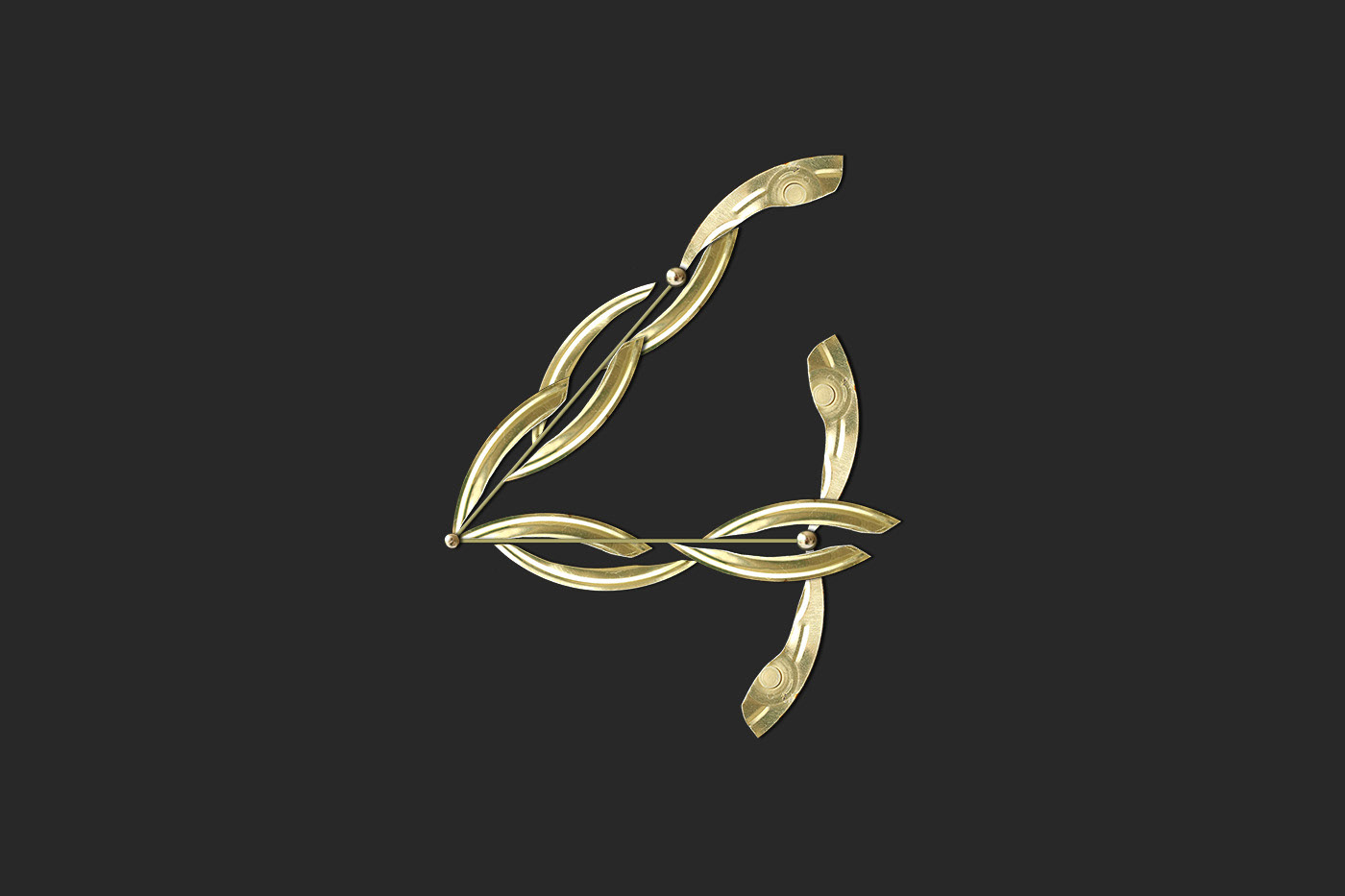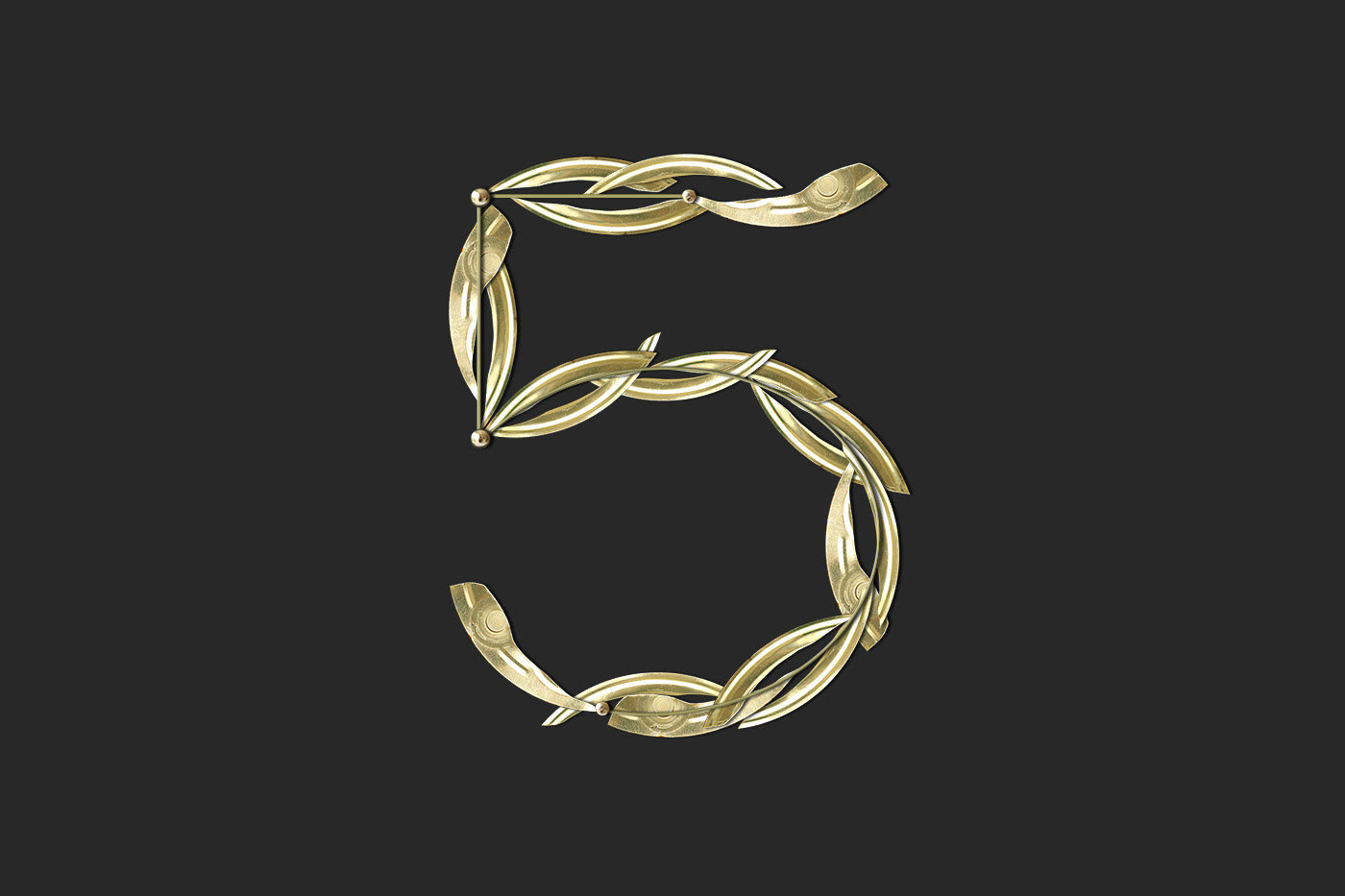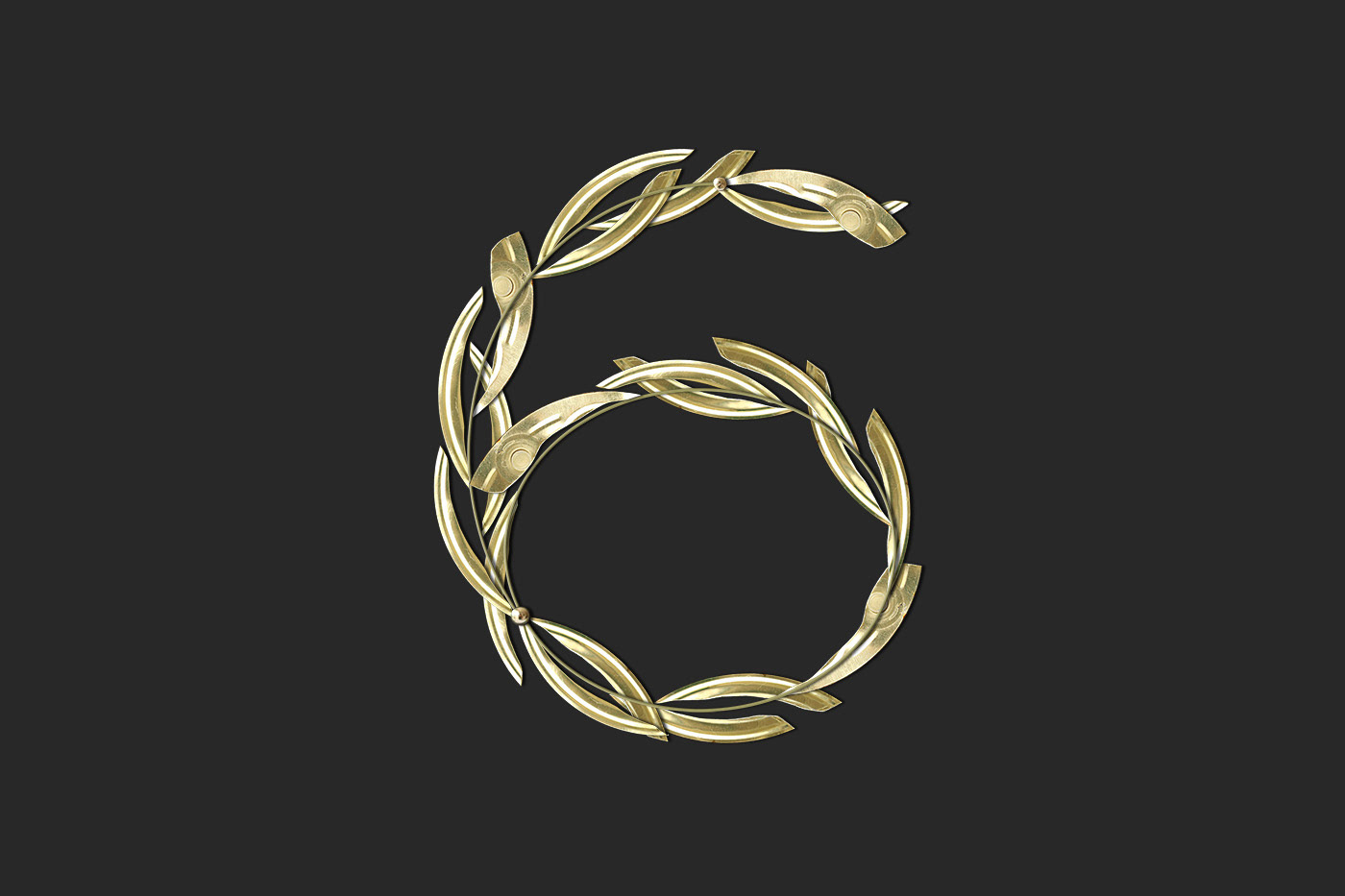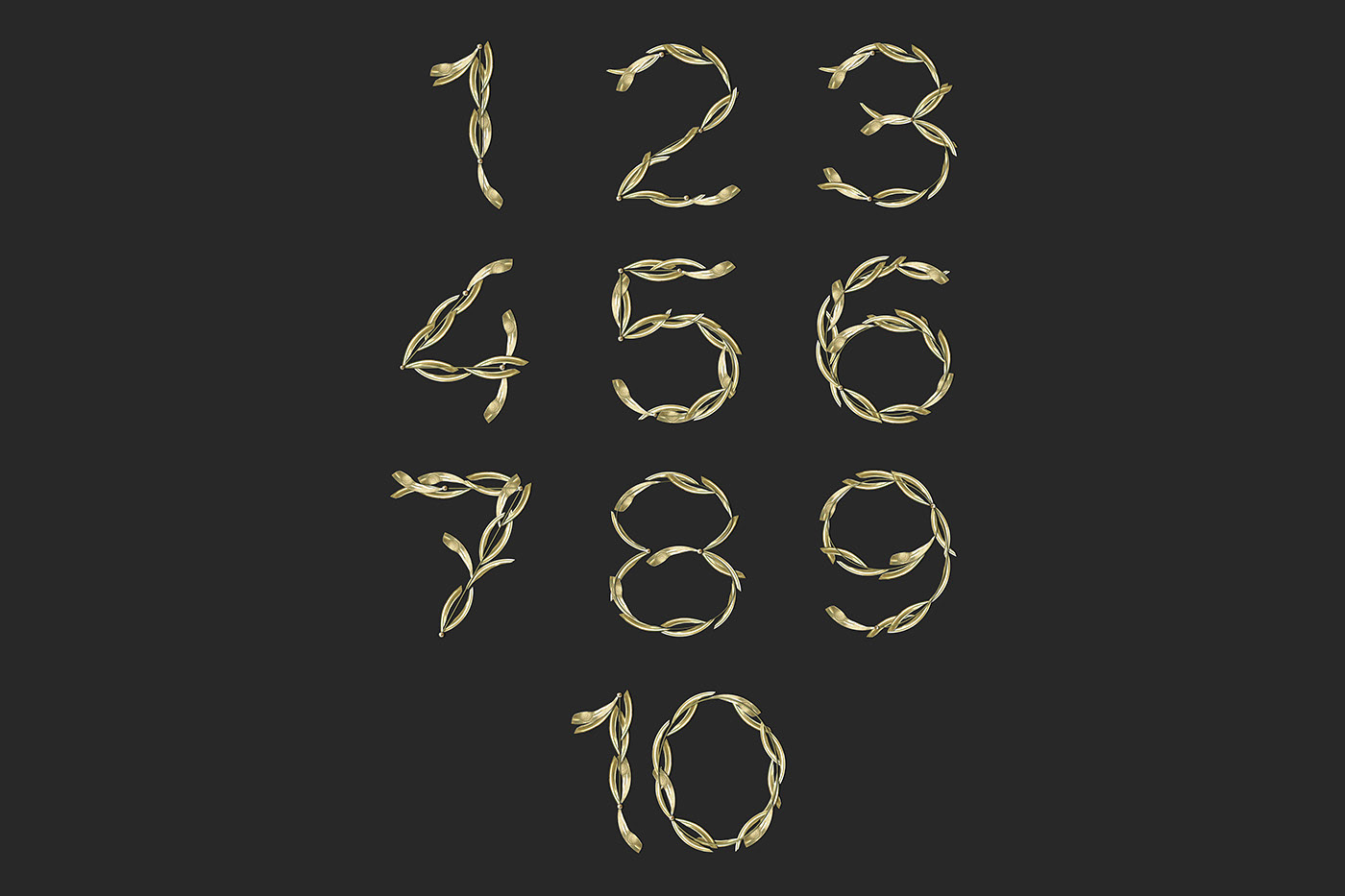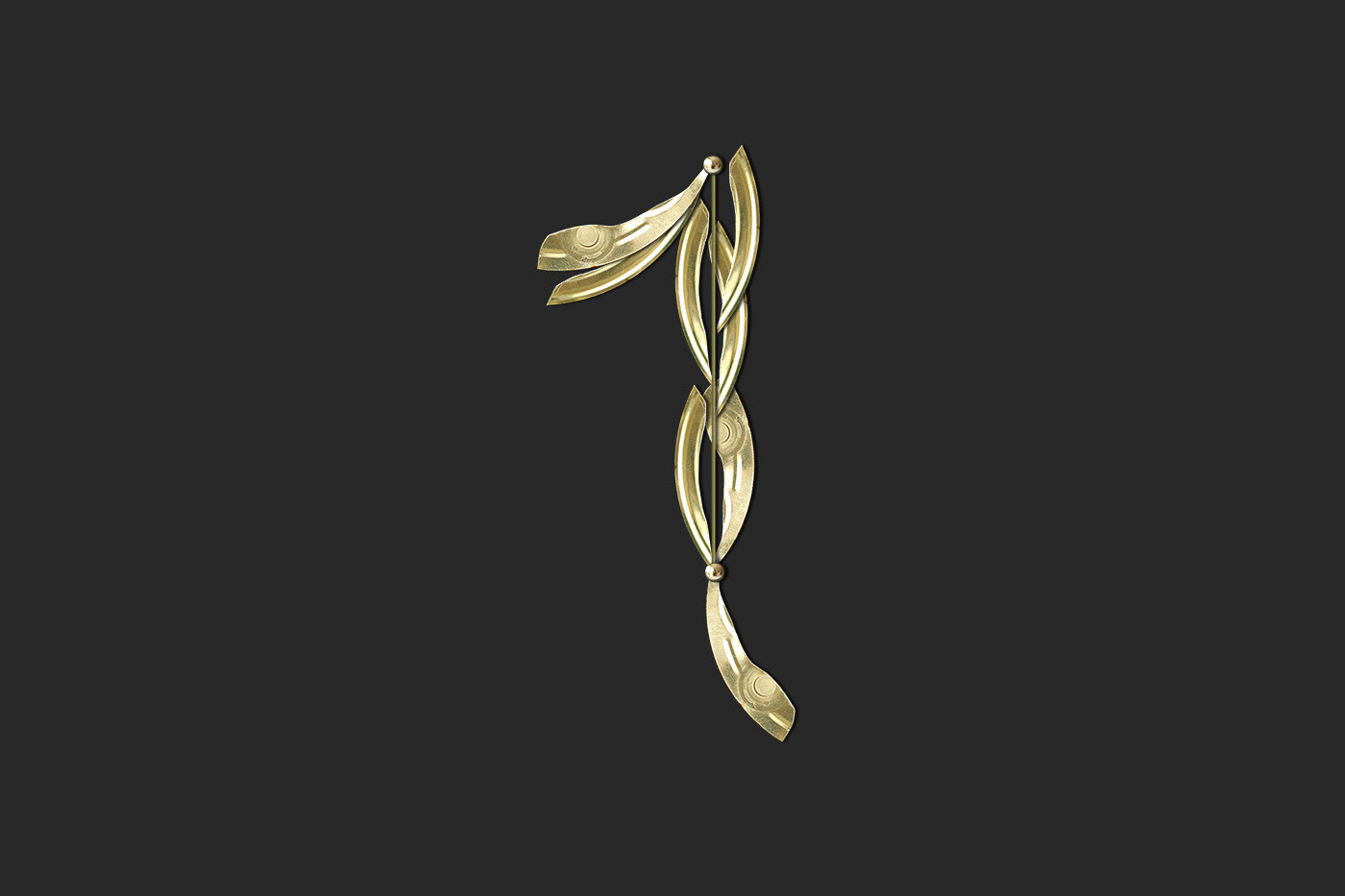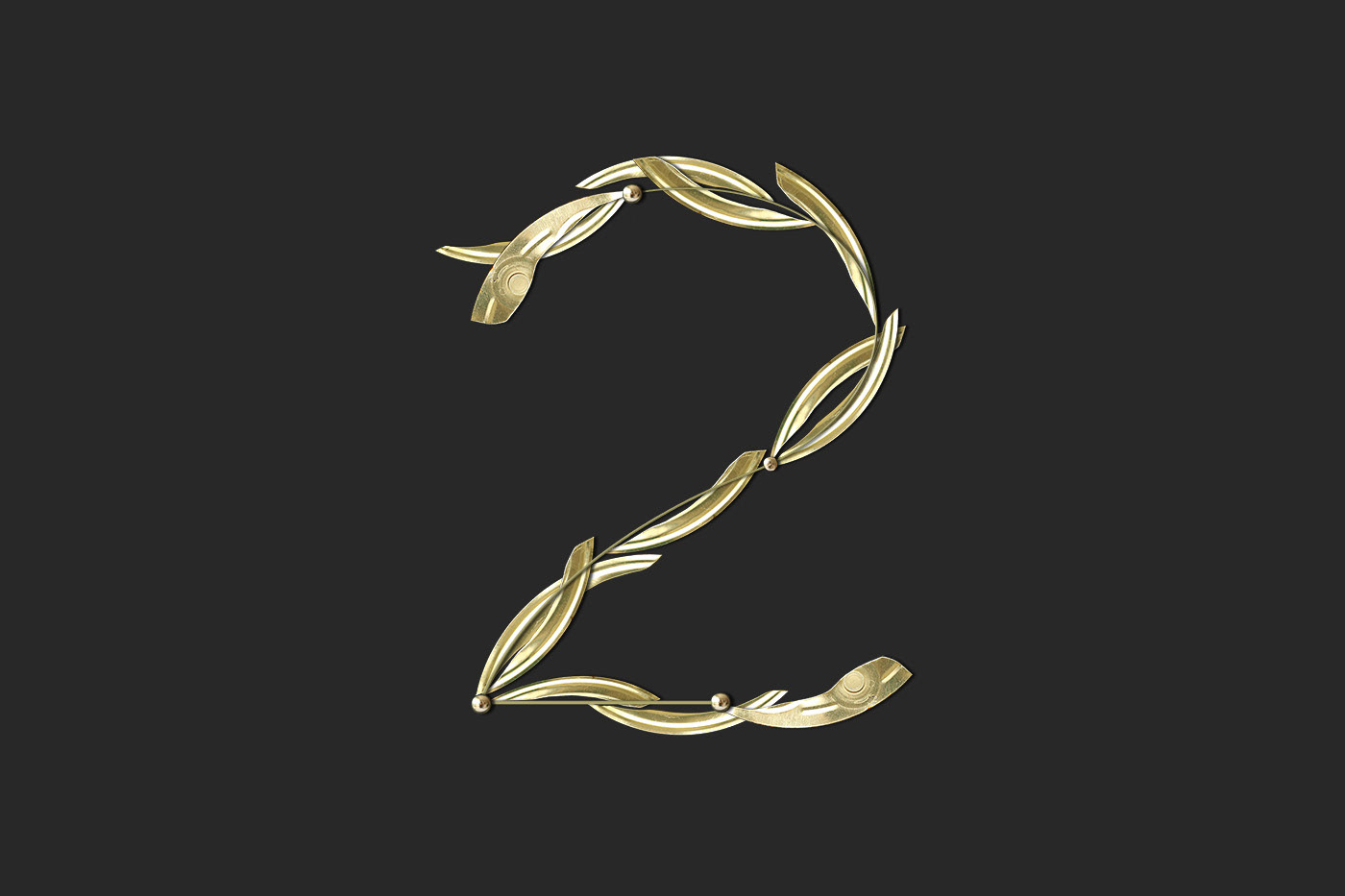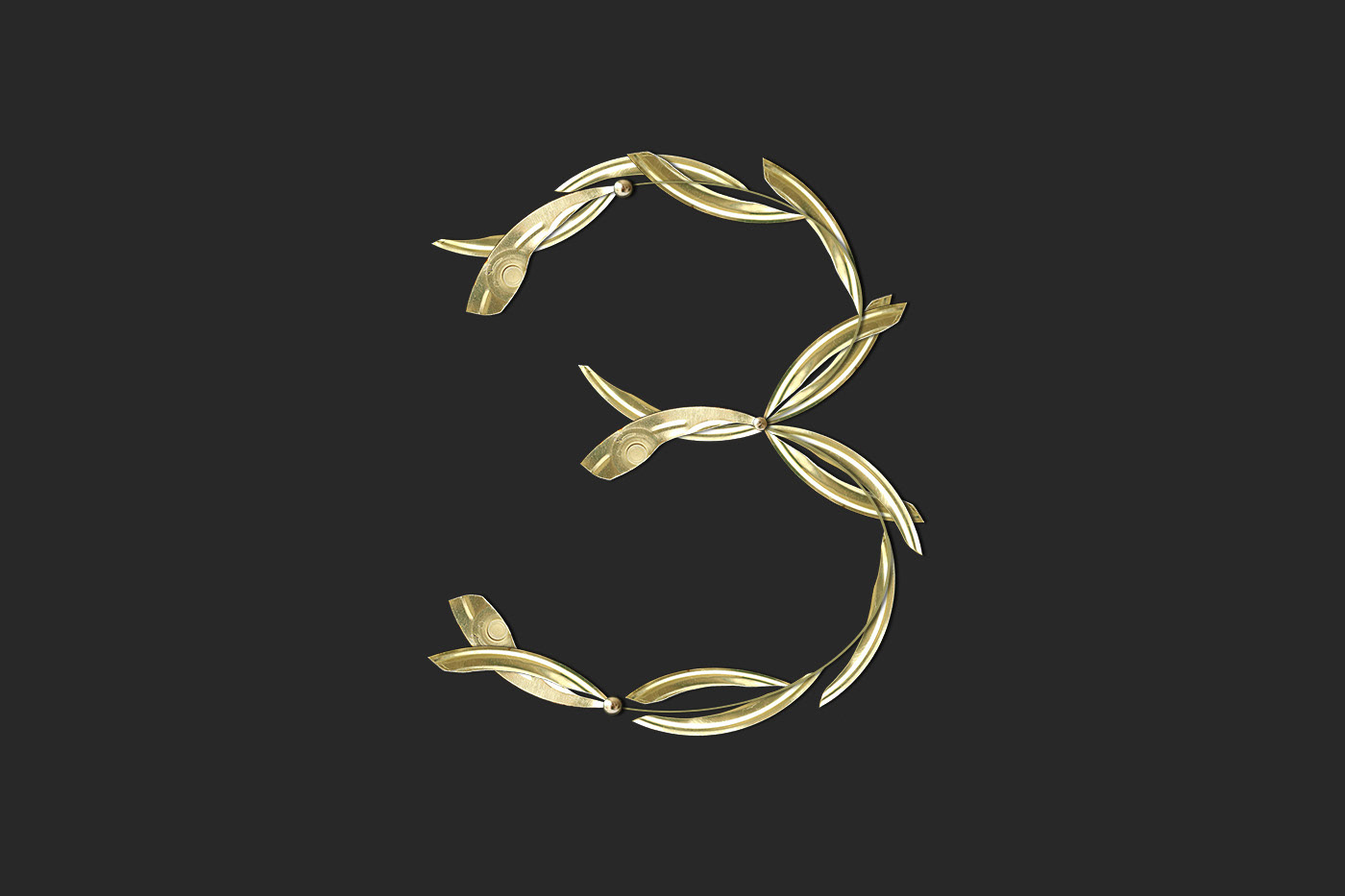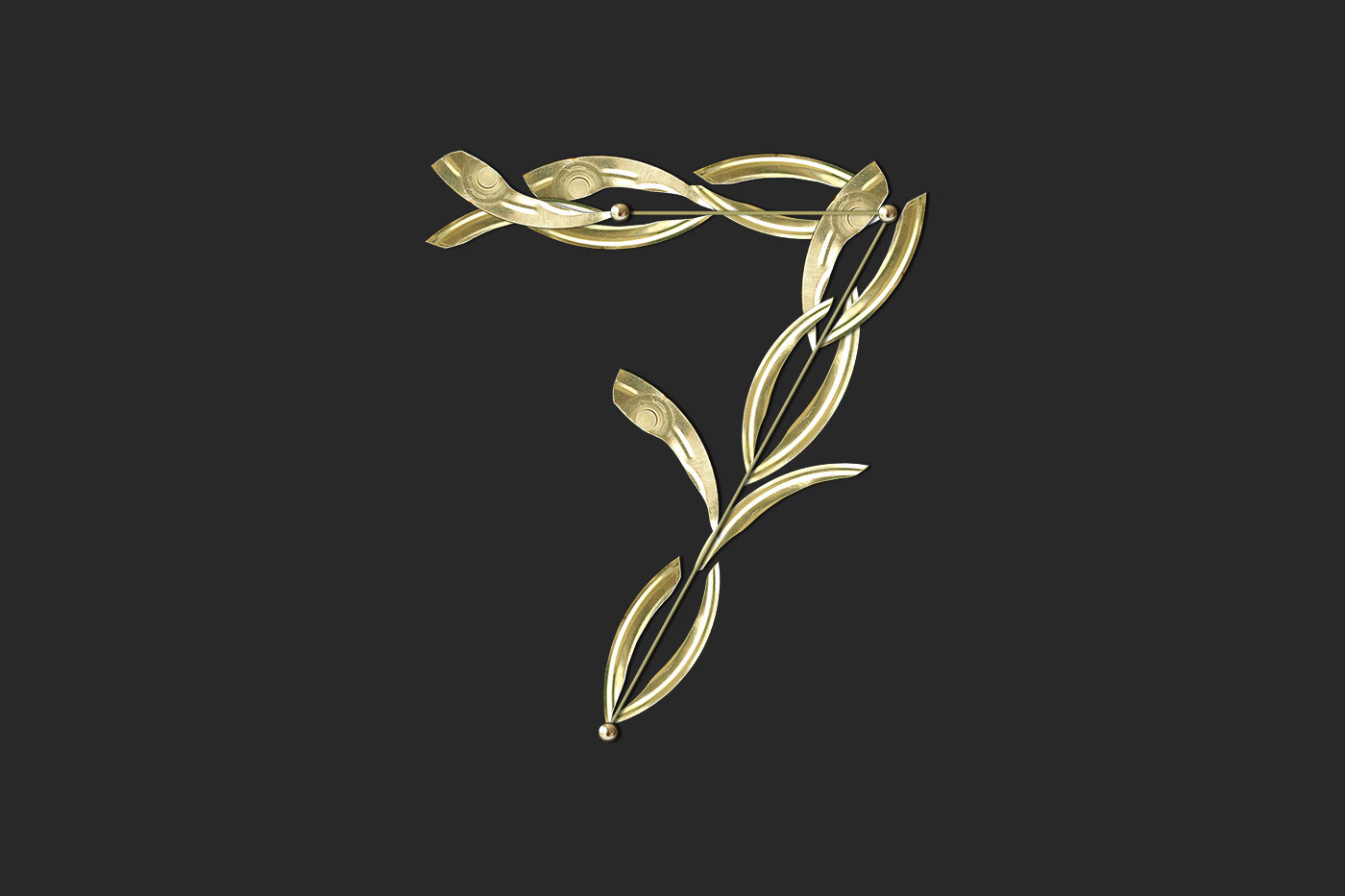
I collect all kinds of waste materials, from objects abandoned in the environment to ordinary daily waste, such as tuna cans, which I love to assemble with other objects on chestnut wooden boards by creating some glimpse marine view. By observing the cutout can lids I came up with the idea of a sinuous delicate typeface with an antique taste that I called 'Caesar Numbers'.
Below you will find the complete set of numbers made out of cut can tops.